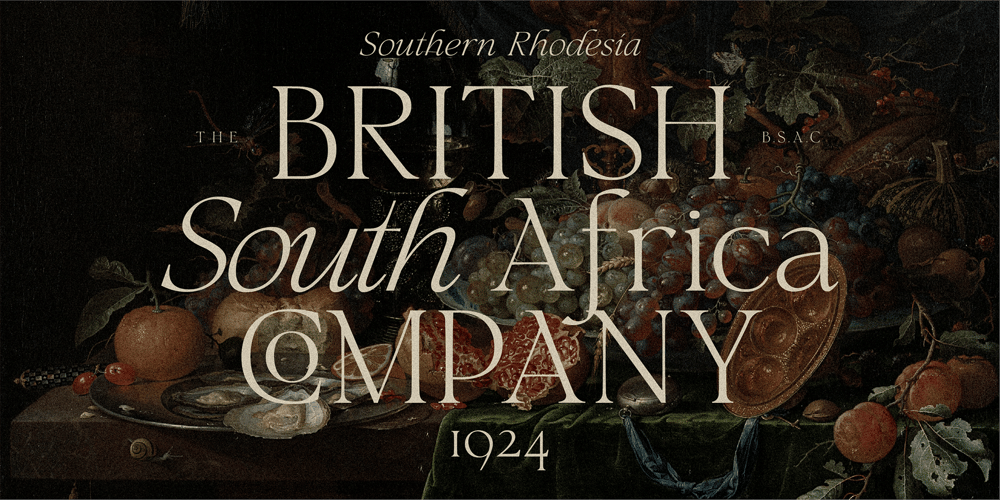
HV Florentino
HV Florentino font
HV Florentino Font Family was designed by Max Duy T. and published by Harmonais Visual. HV Florentino contains 2 styles and family package options. Florentino – a Renaissance Era calligraphic-inspired serif with a touch of elegance. Specially designed for retro, elegant projects, Florentino is perfectly suitable for creating classic design such as logos, packaging, editorial, and more.